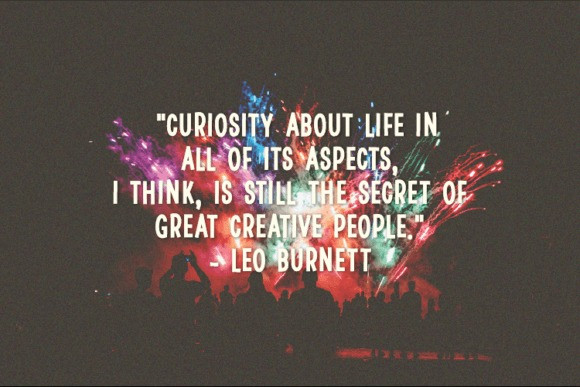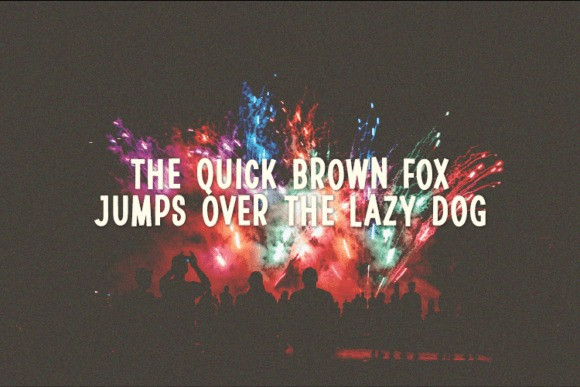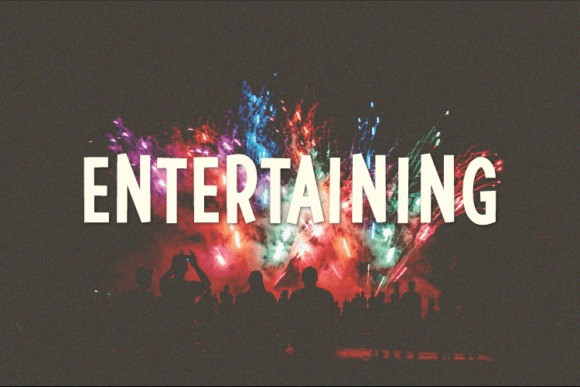
Entertaining Font
Entertaining Font is an interesting and unique sans serif font perfect for quotes, notes, T-shirts, and many more. Add it to your font collection, and it will make your creative projects outstanding!